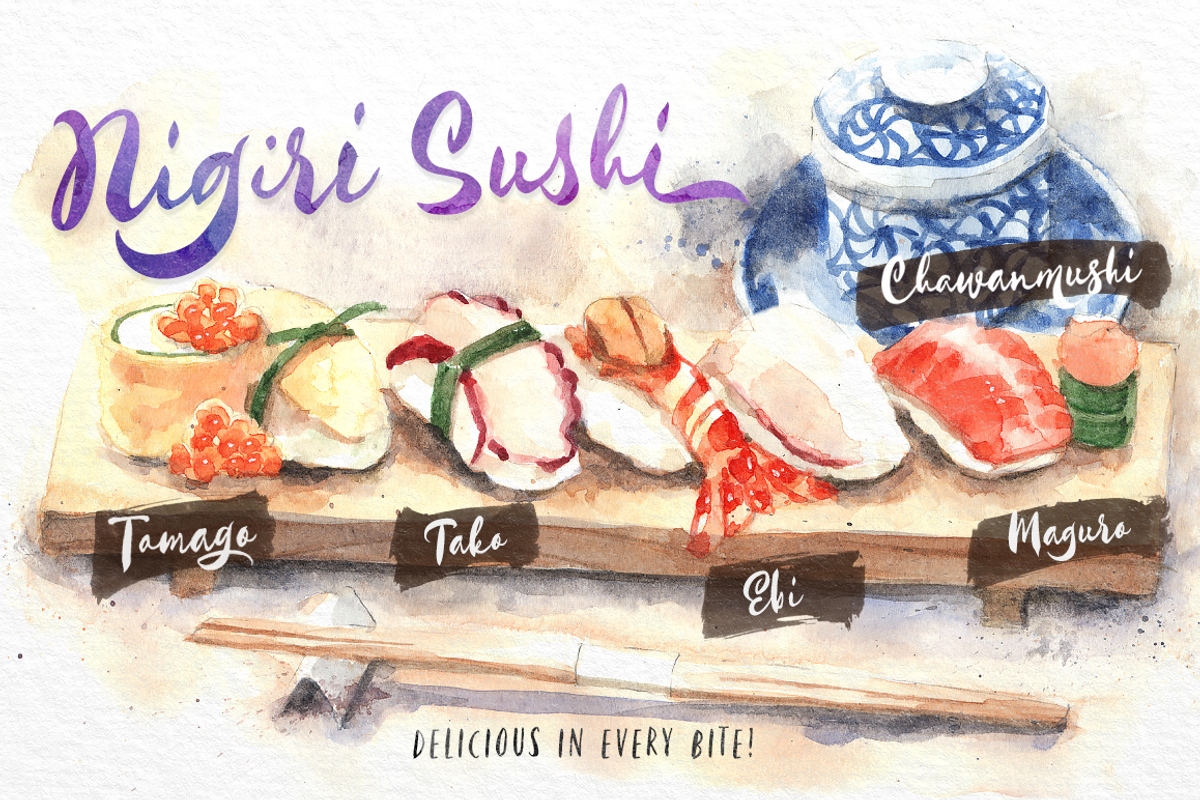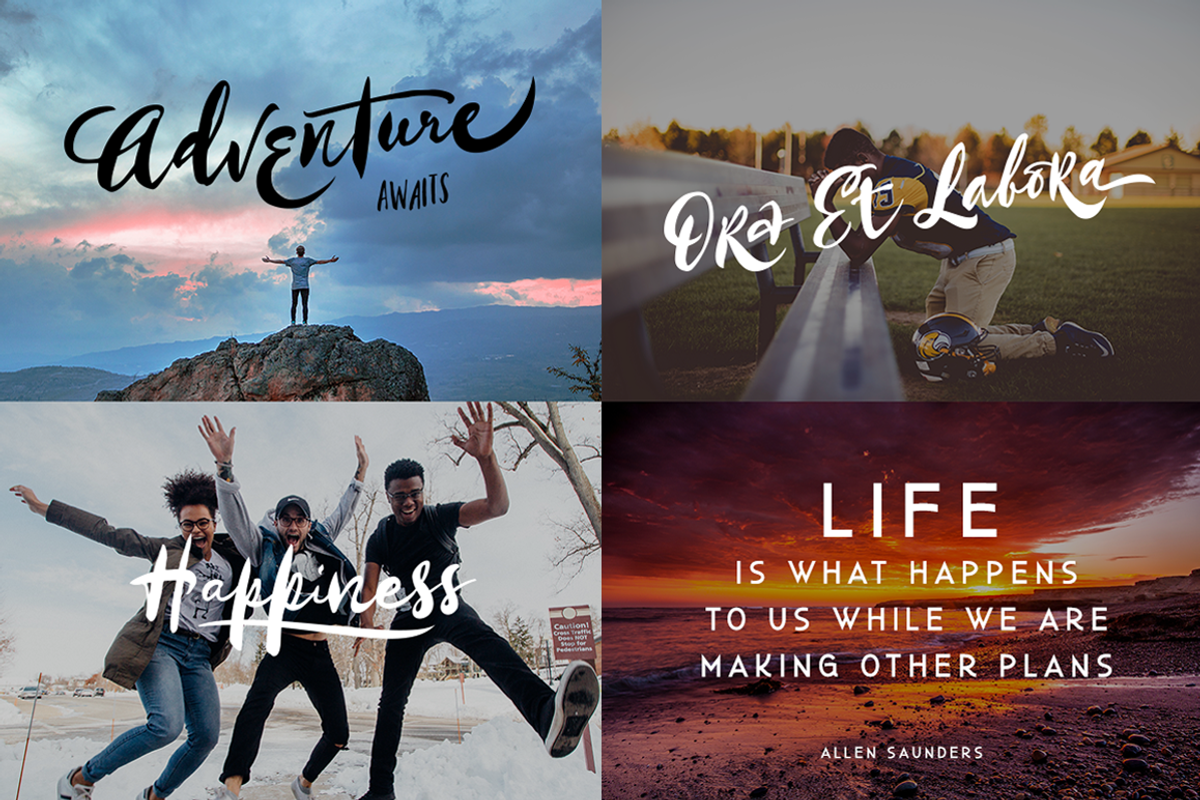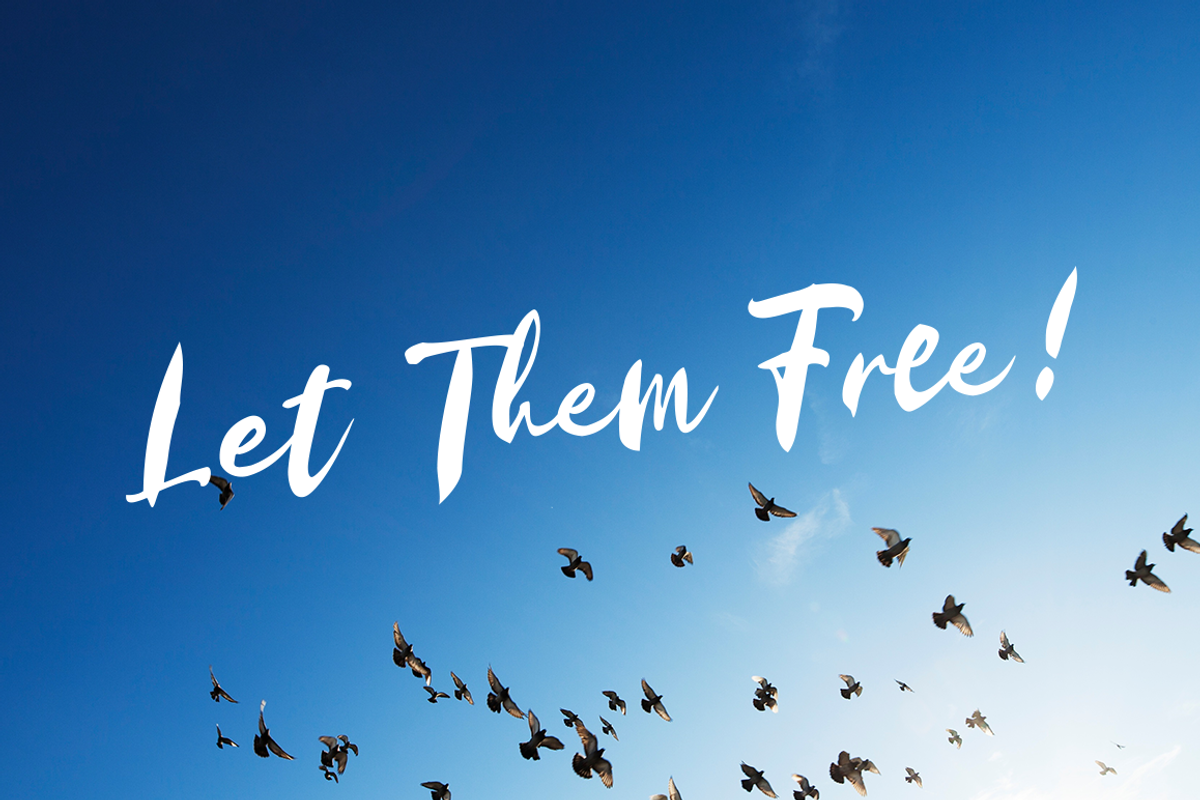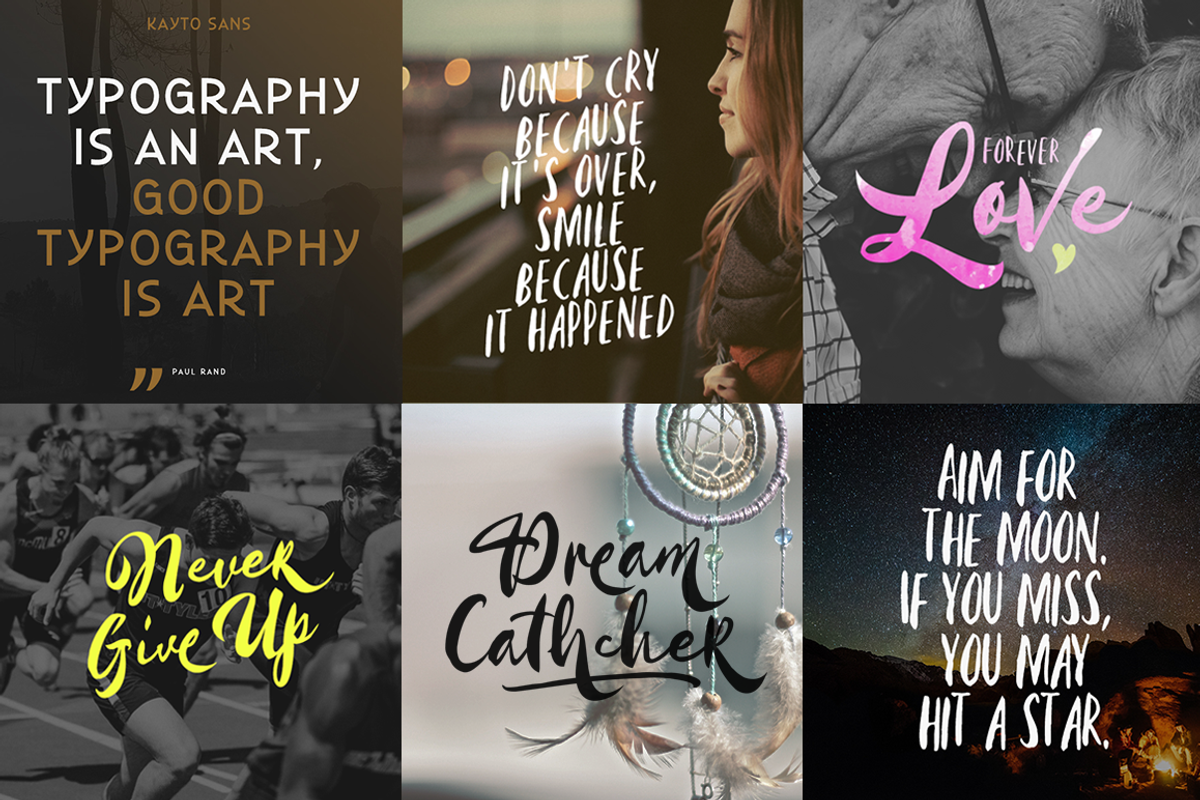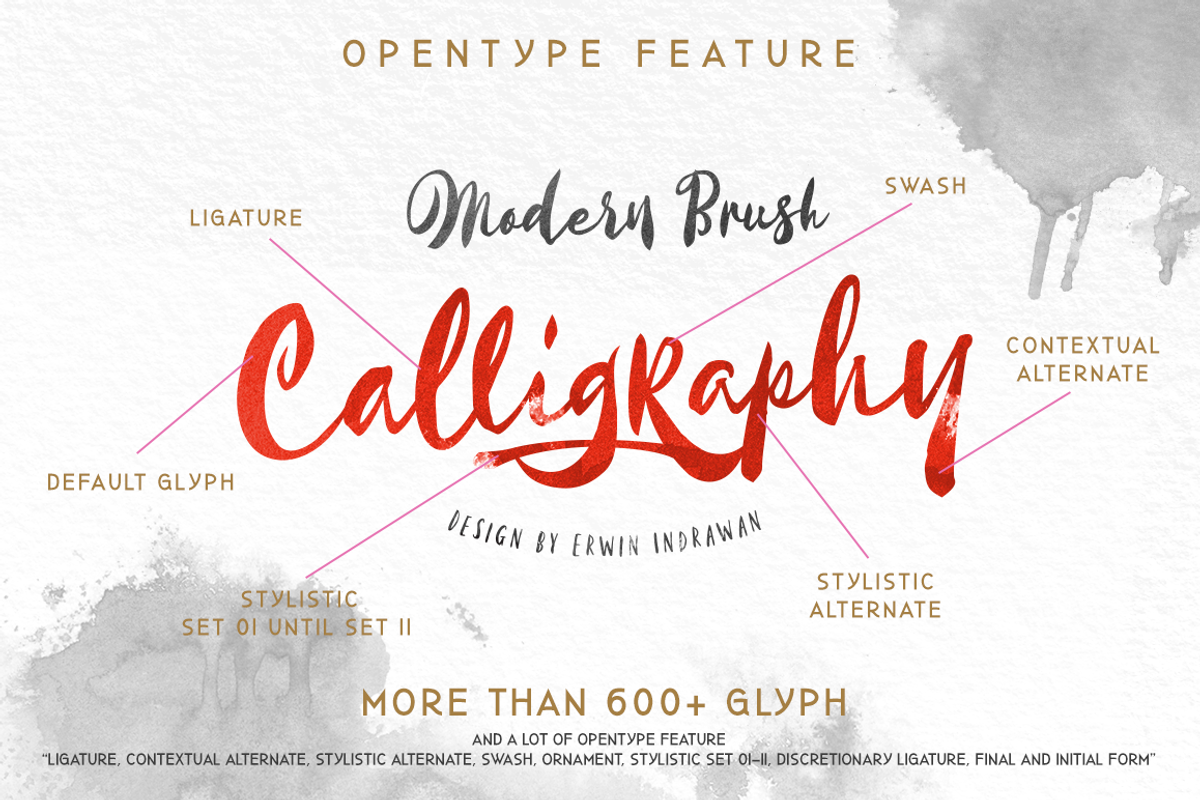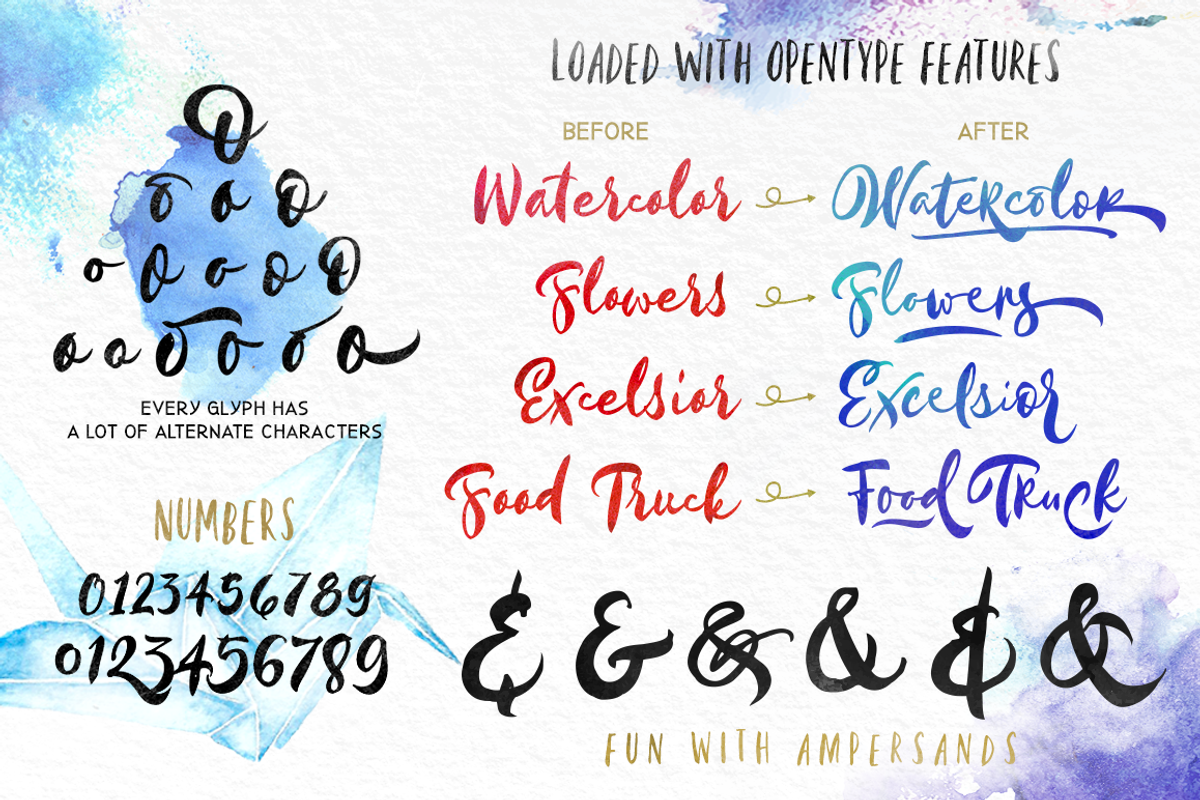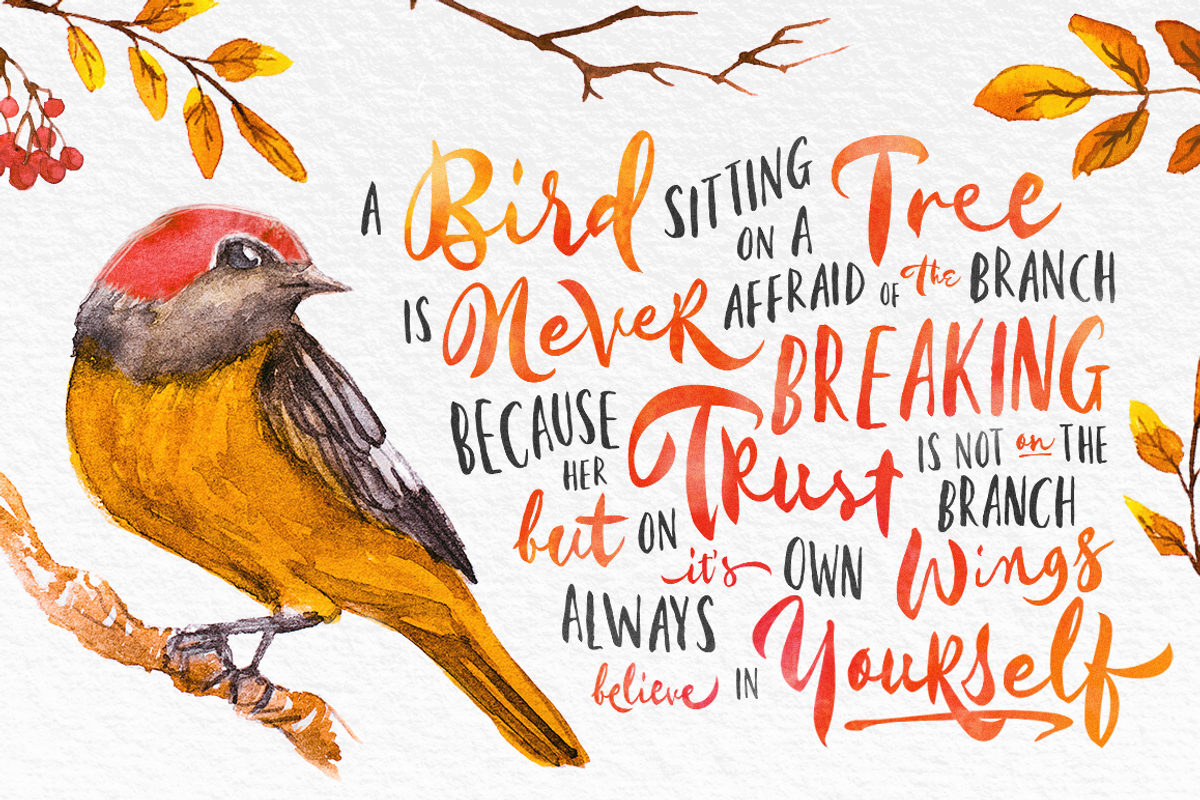
Kayto - Calligraphy Font Bundle
Kayto - Calligraphy Font Bundle by dexsarharryfonts is a font selected for branding, posters, packaging, typography.
- 4 Doodle theme (Love, Coffee, Mountain & Space)
- Multilingual Support & Over 600+ Glyph
- And just like handwriting, every letter in Kayto script is crafted with many varieties of glyphs and ligatures to make an unlimited combinat
Kayto - Calligraphy Font Bundle by dexsarharryfonts fits naturally into Branding, posters, packaging, typography.